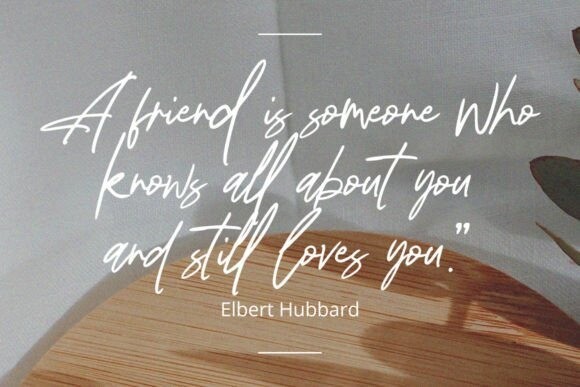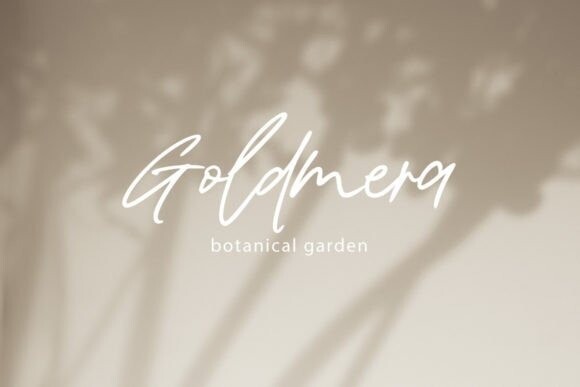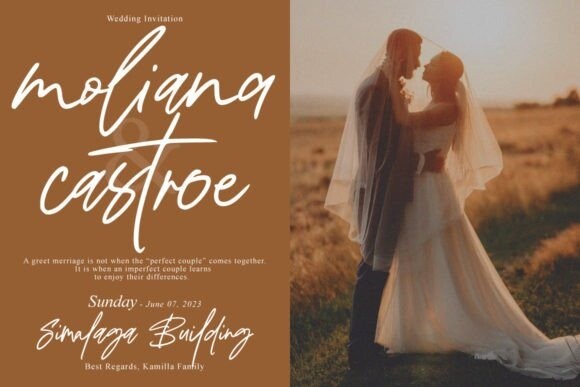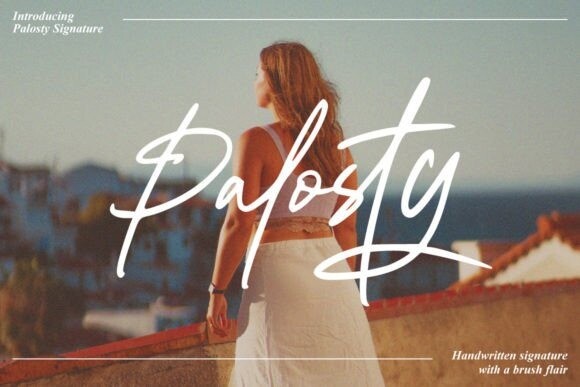
Palosty Font
Palosty Font is a beautiful light handwritten font designed by tebaltipiss with a unique feel and a stunning impact. Its flowing letterforms and decorative swashes create a timeless look that is perfect for wedding invitations, branding, and other high-end design projects.